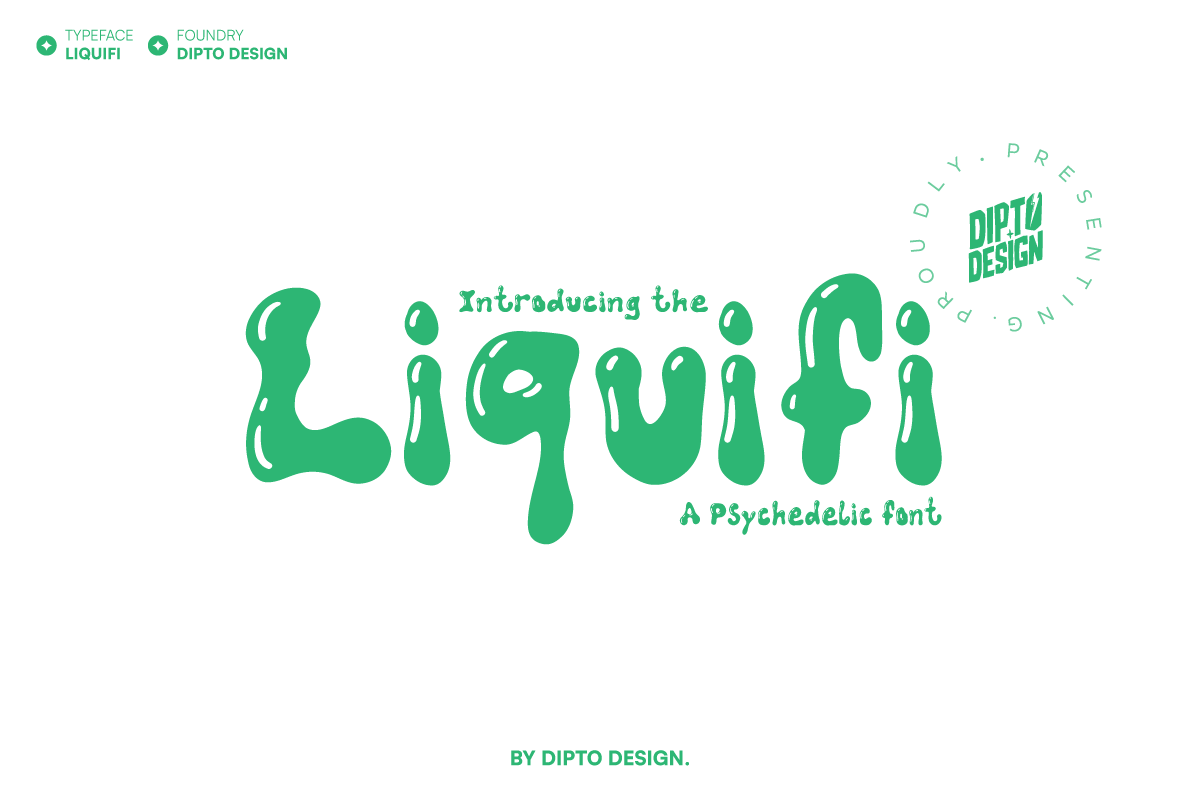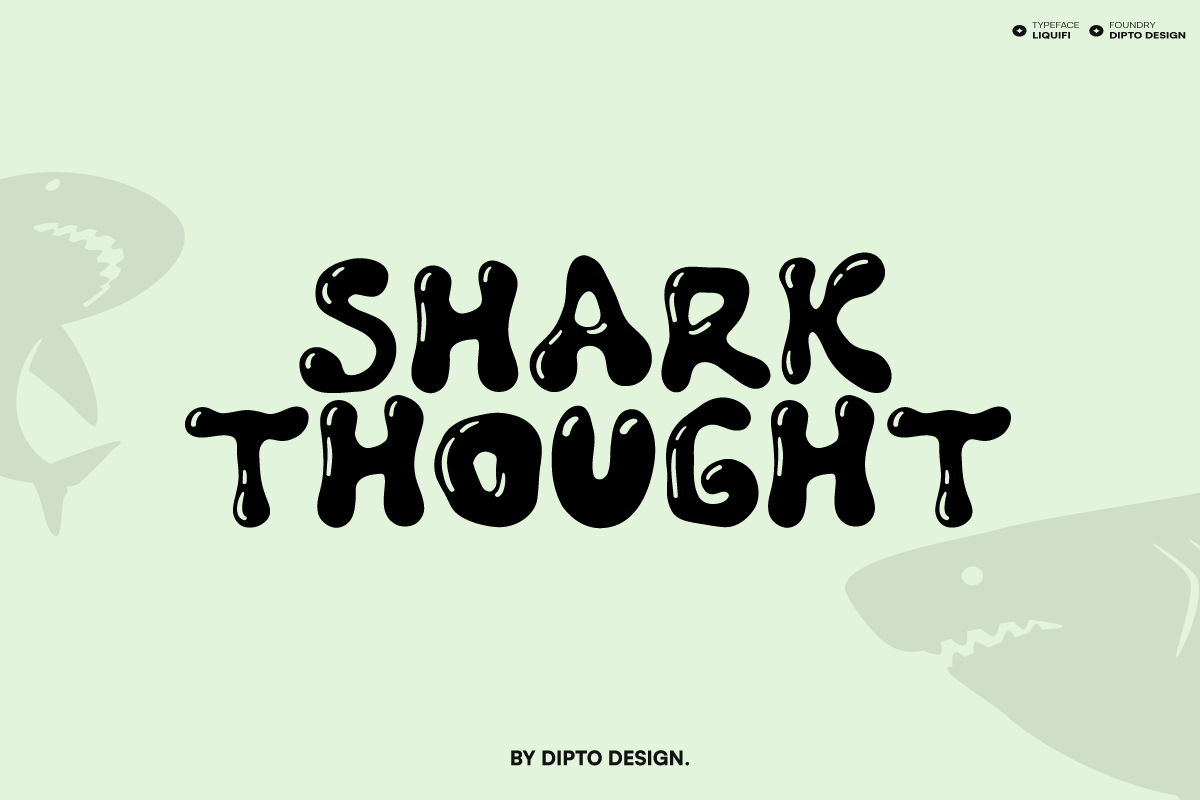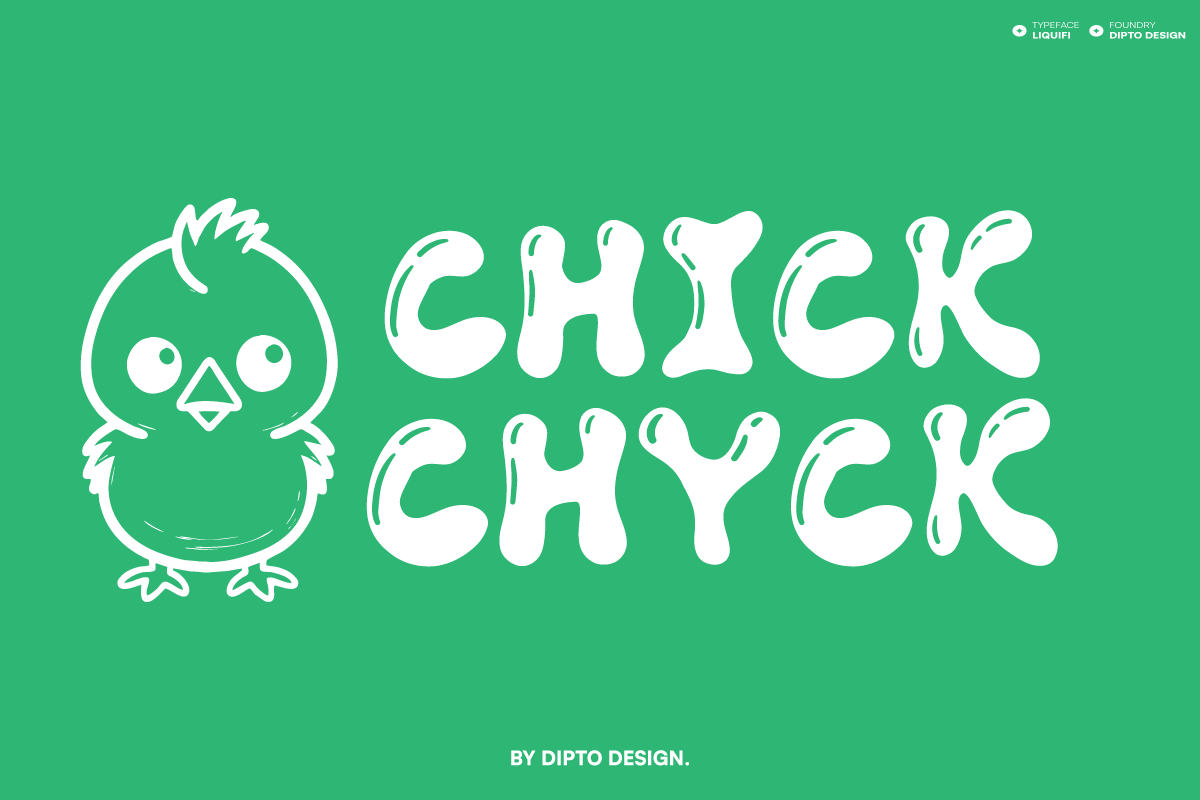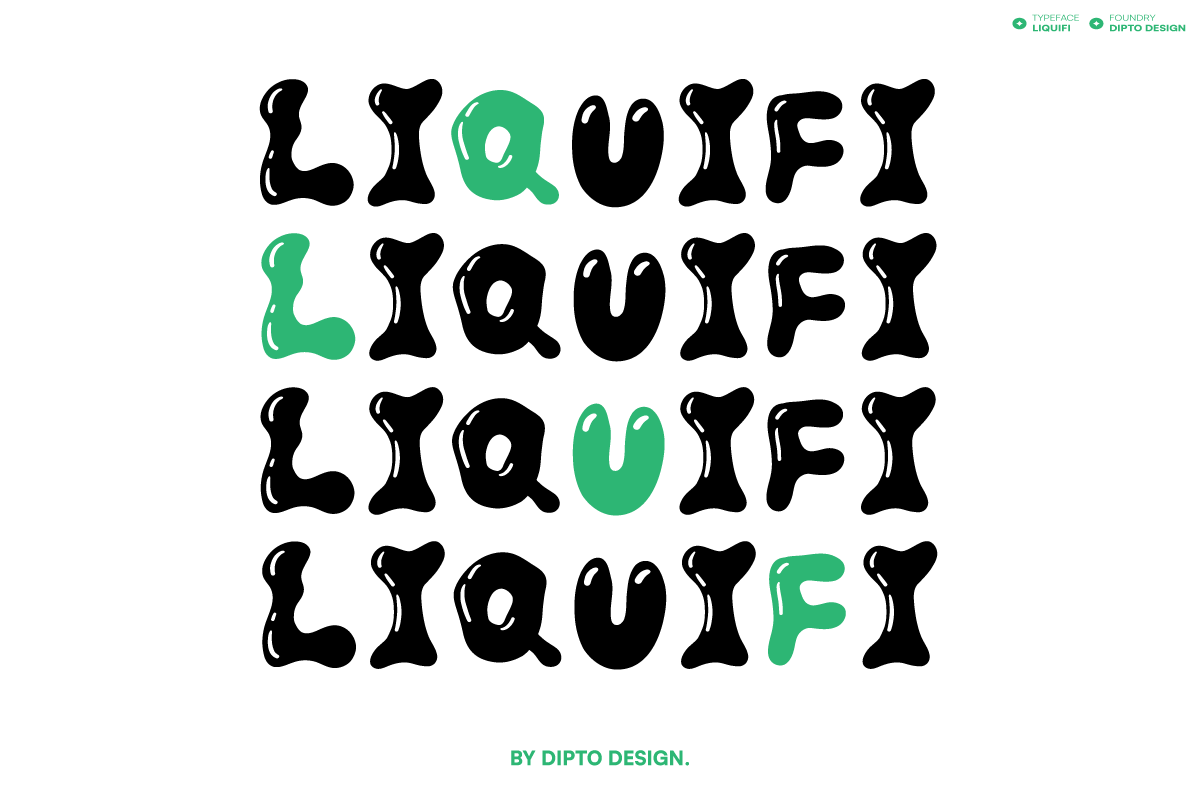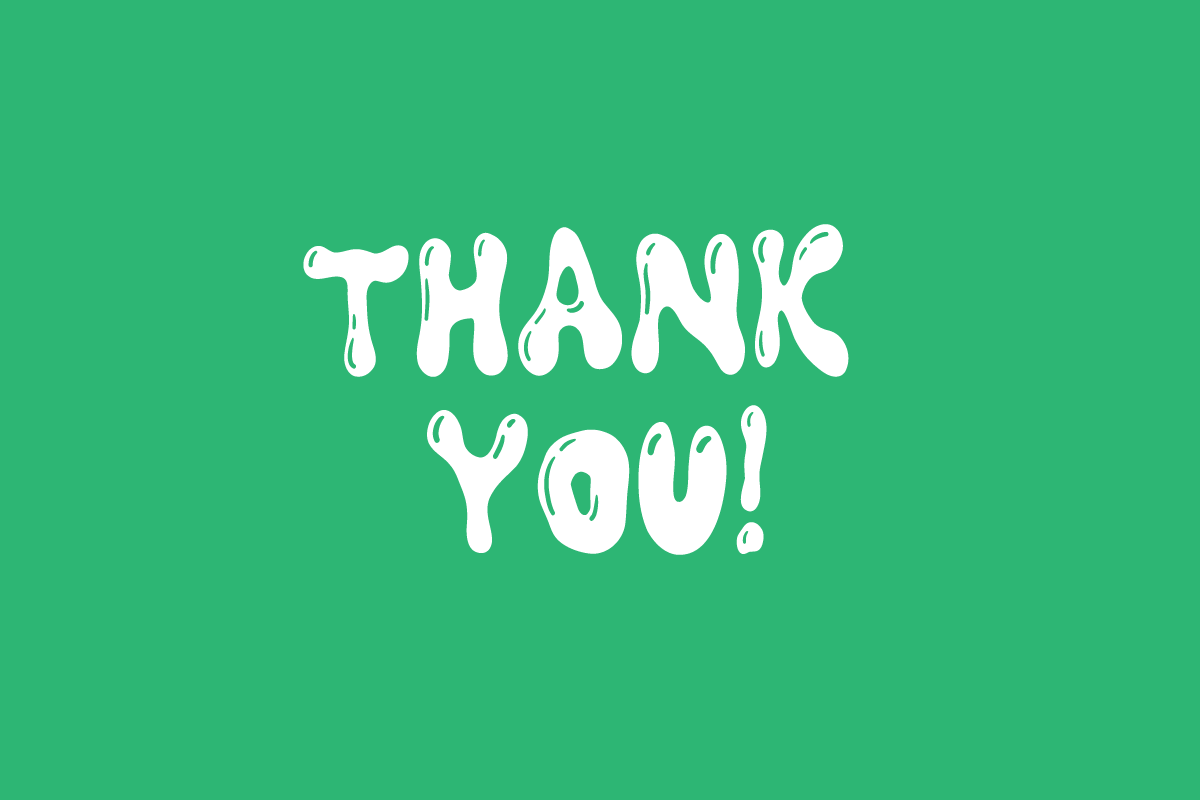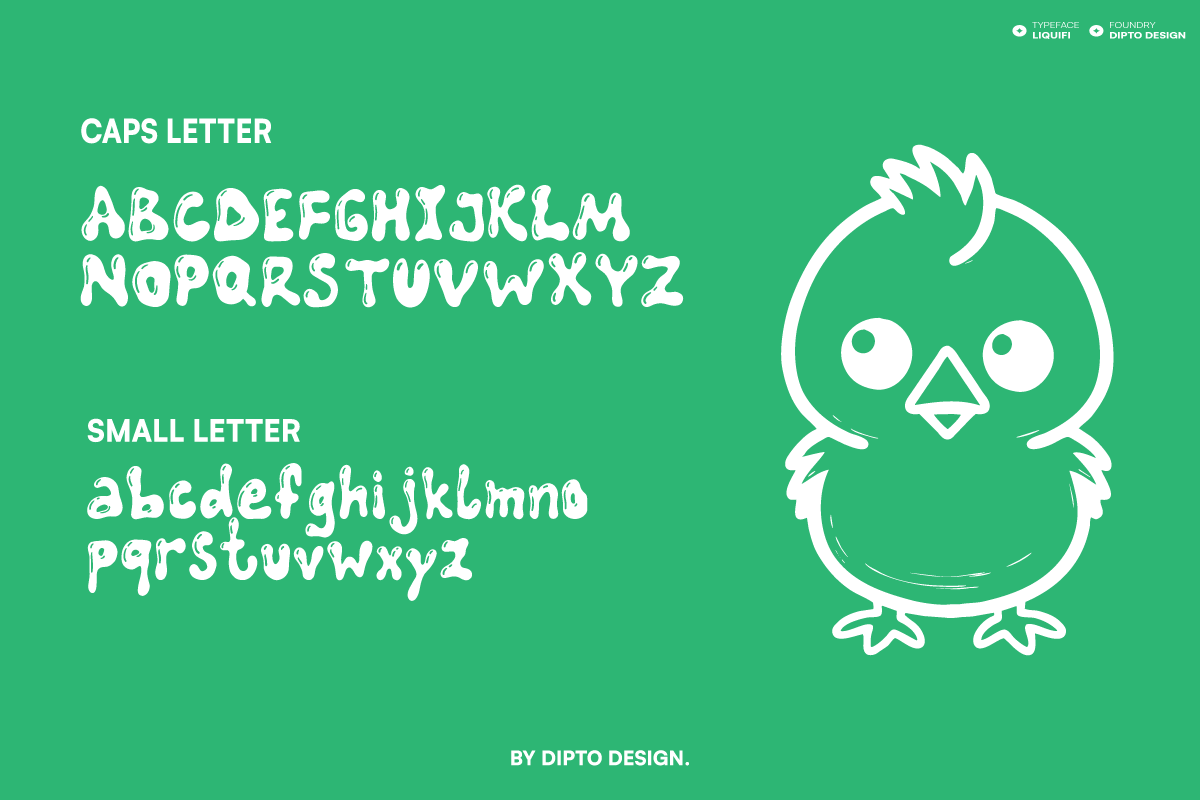
Liquifi - A Psychedelic Typeface
Liquifi – A Psychedelic Dive into the realm of artistic typography with “Liquifi”, a psychedelic typeface that infuses your designs with undeniable vibrancy. This versatile typeface comes in an array of formats – OTF, TTF, EOT, WOFF, and WOFF2 – ready to breathe life and excitement into your creative ventures.
Key attributes include uppercase and lowercase regular characters, along with an array of punctuation and marks. Dive into the delightful world of “Liquifi”, where every keystroke is a stroke of creativity!
- Uppercase : Regular
- Lowercase : Regular
- Punctuation and Marks